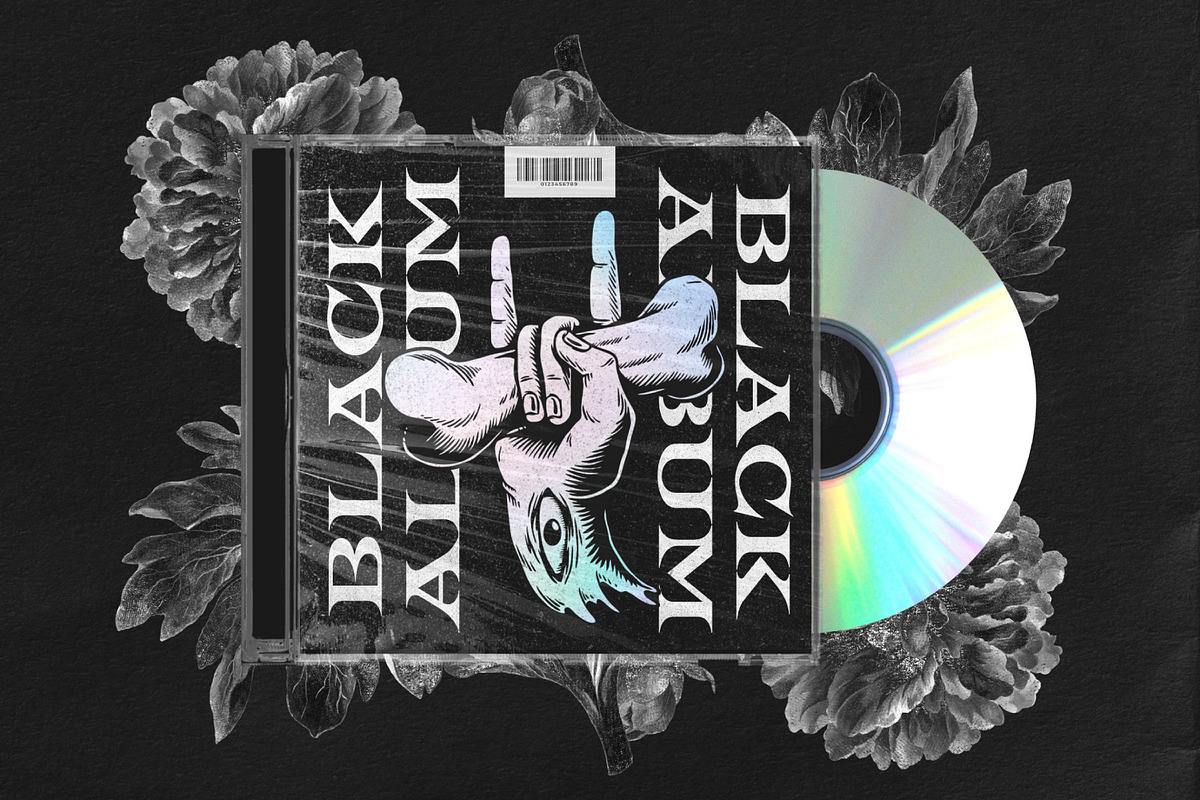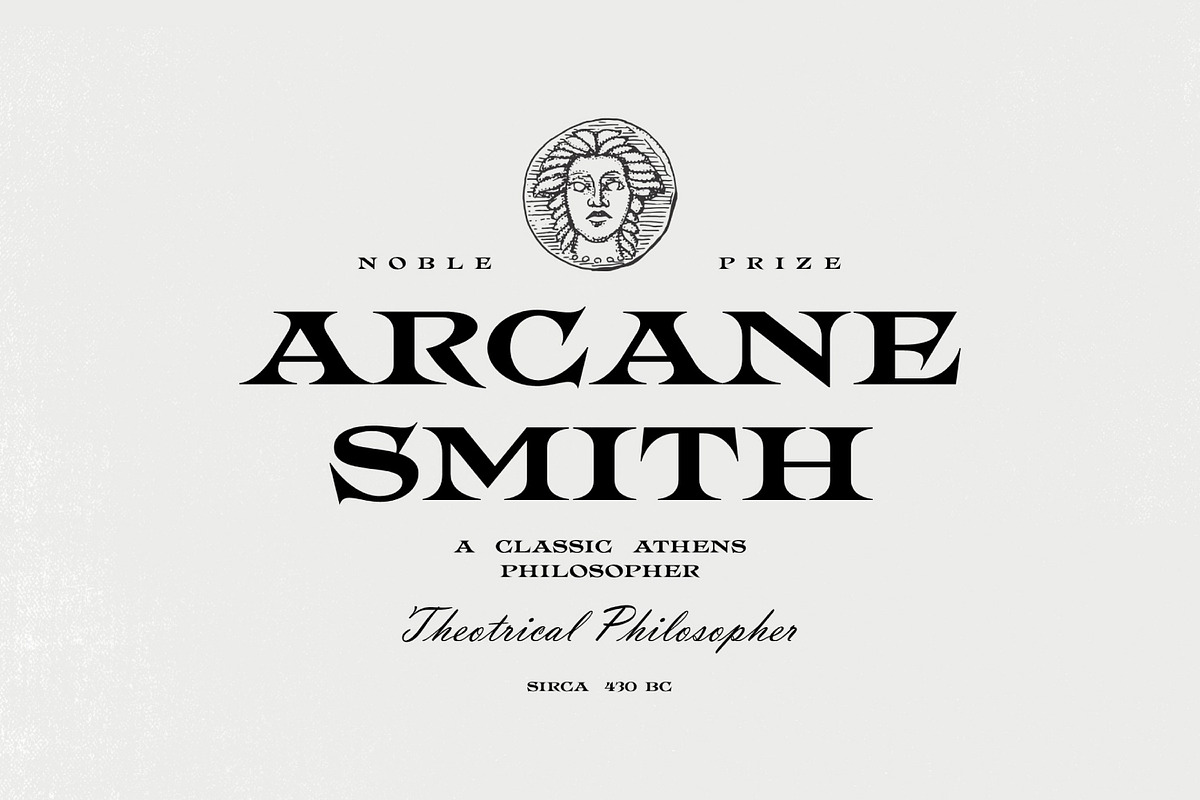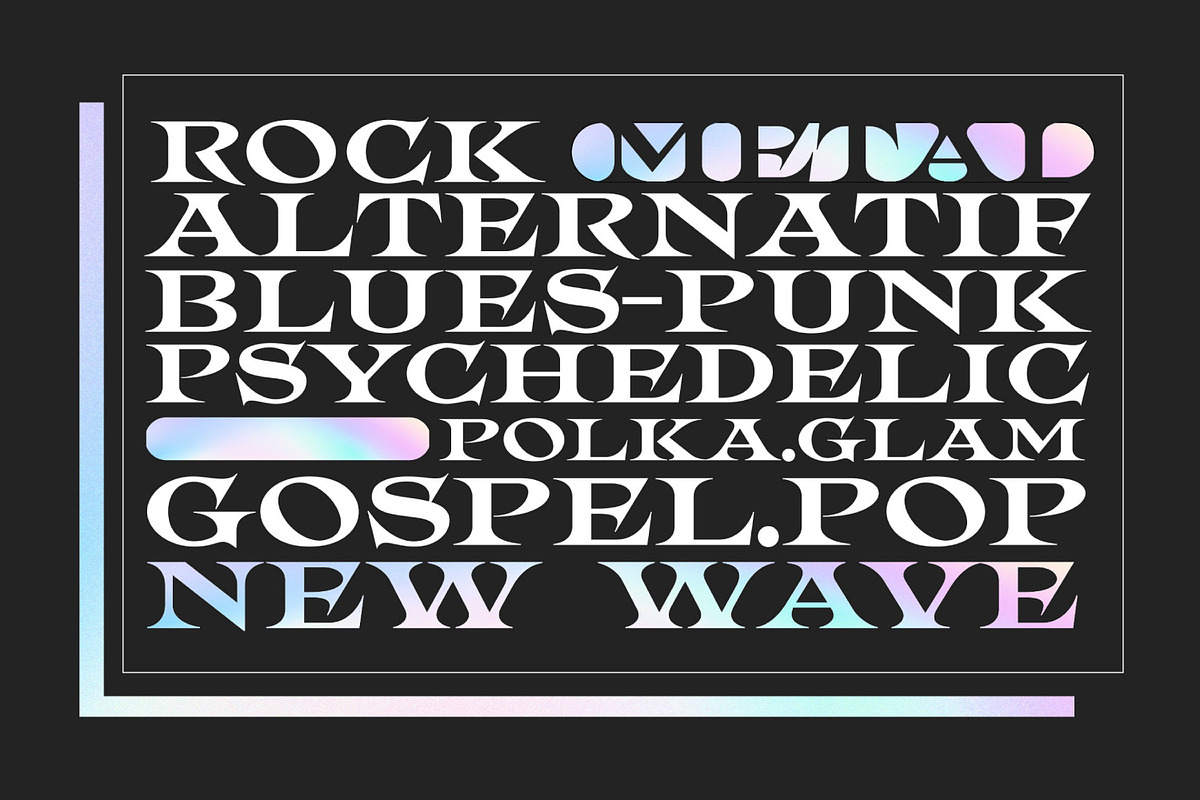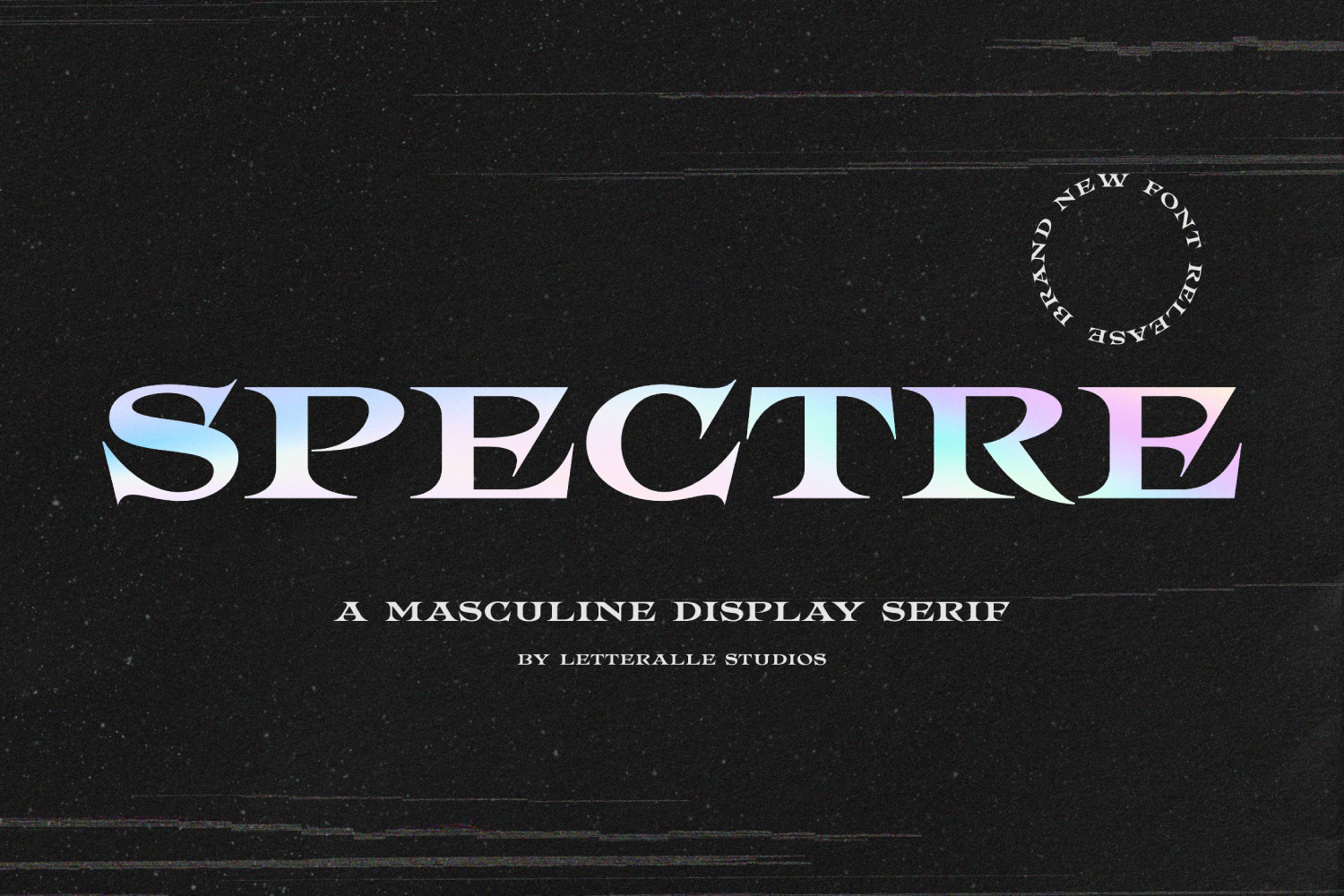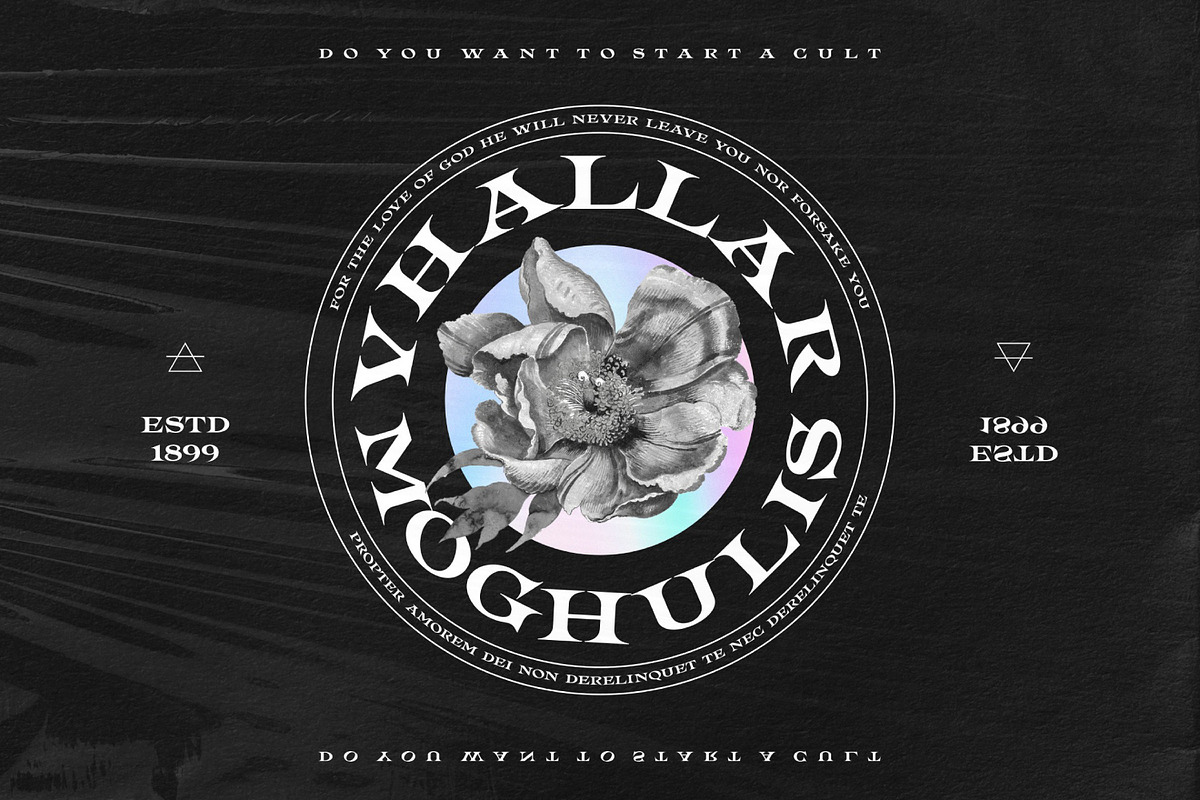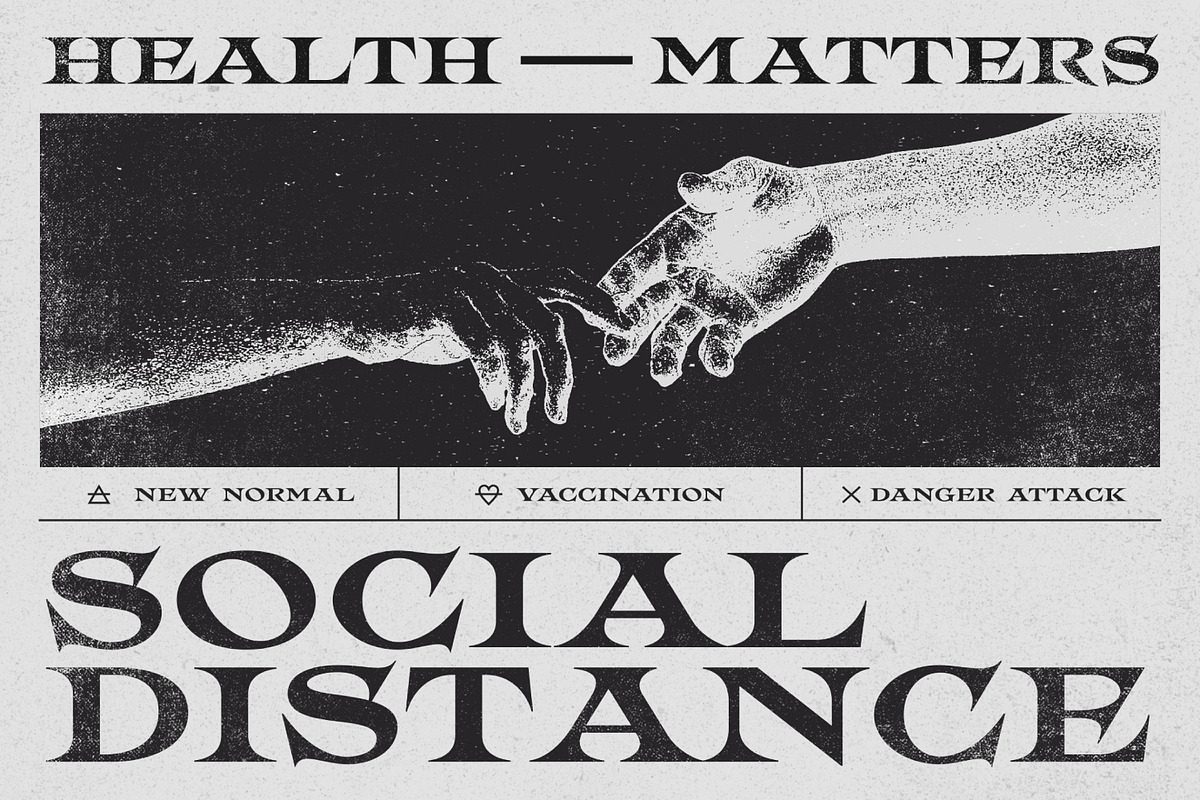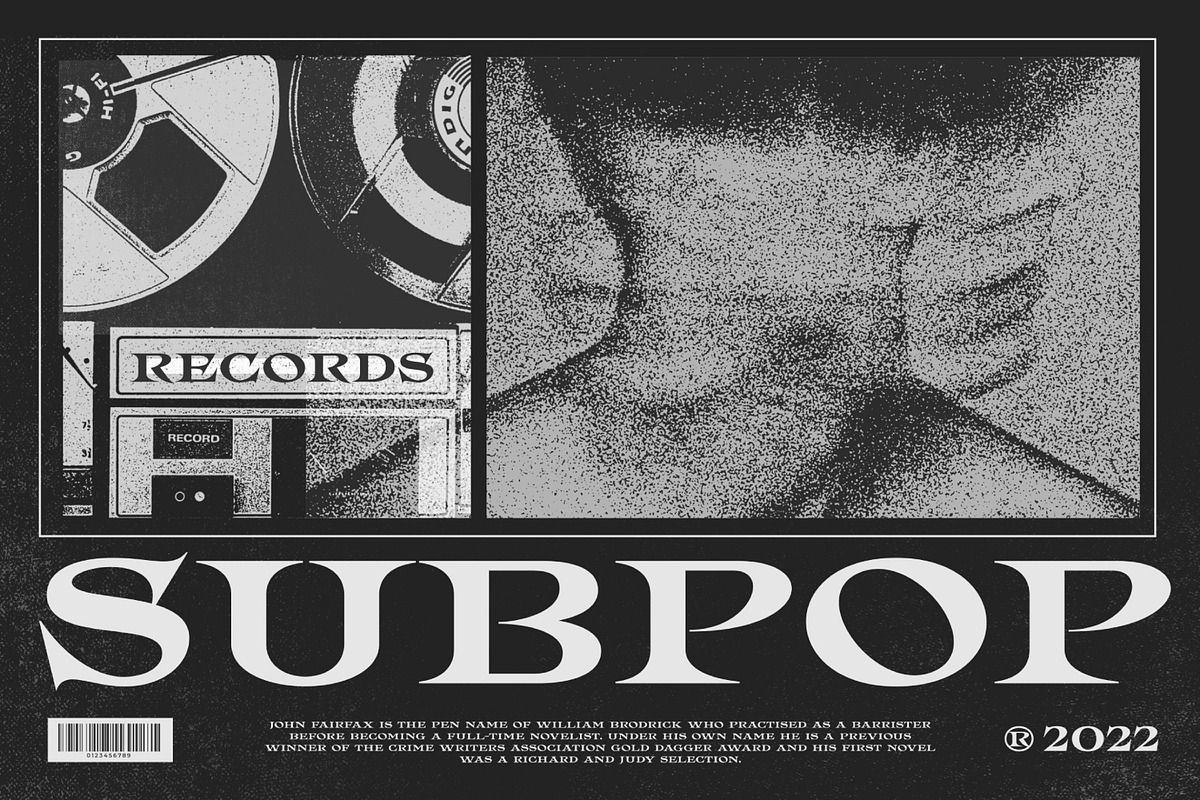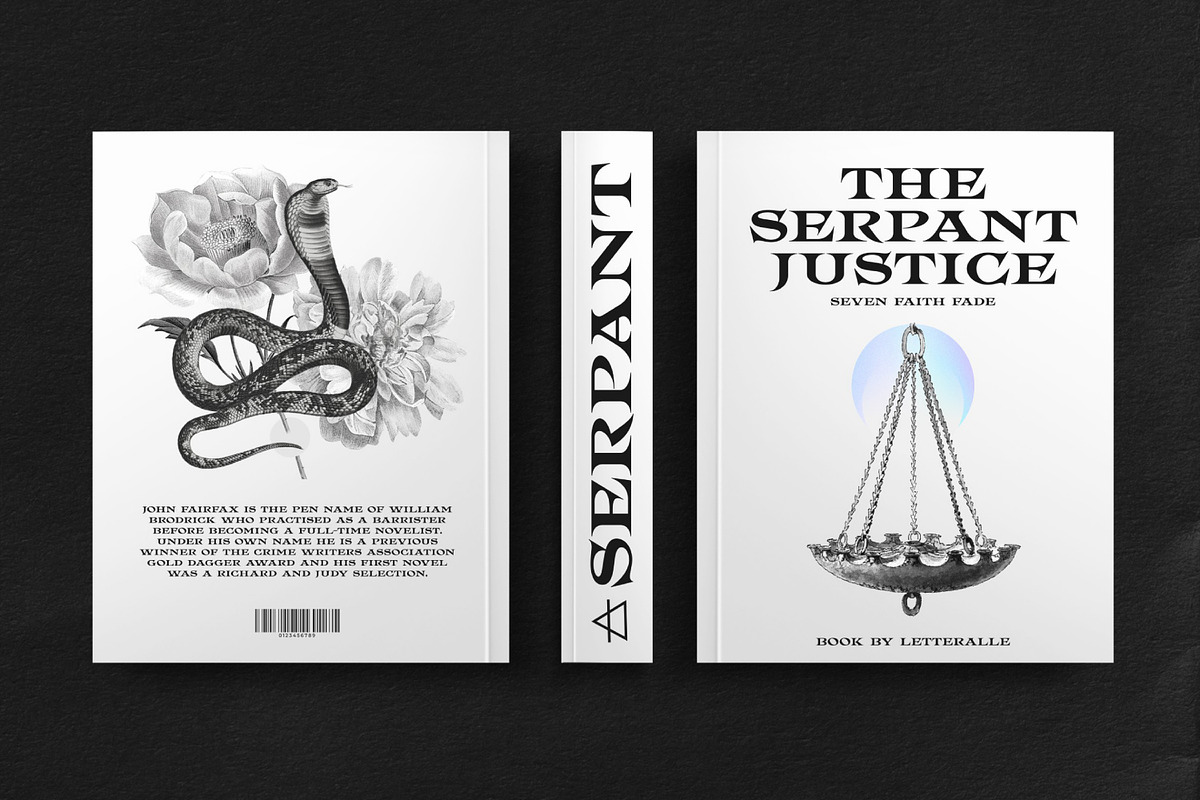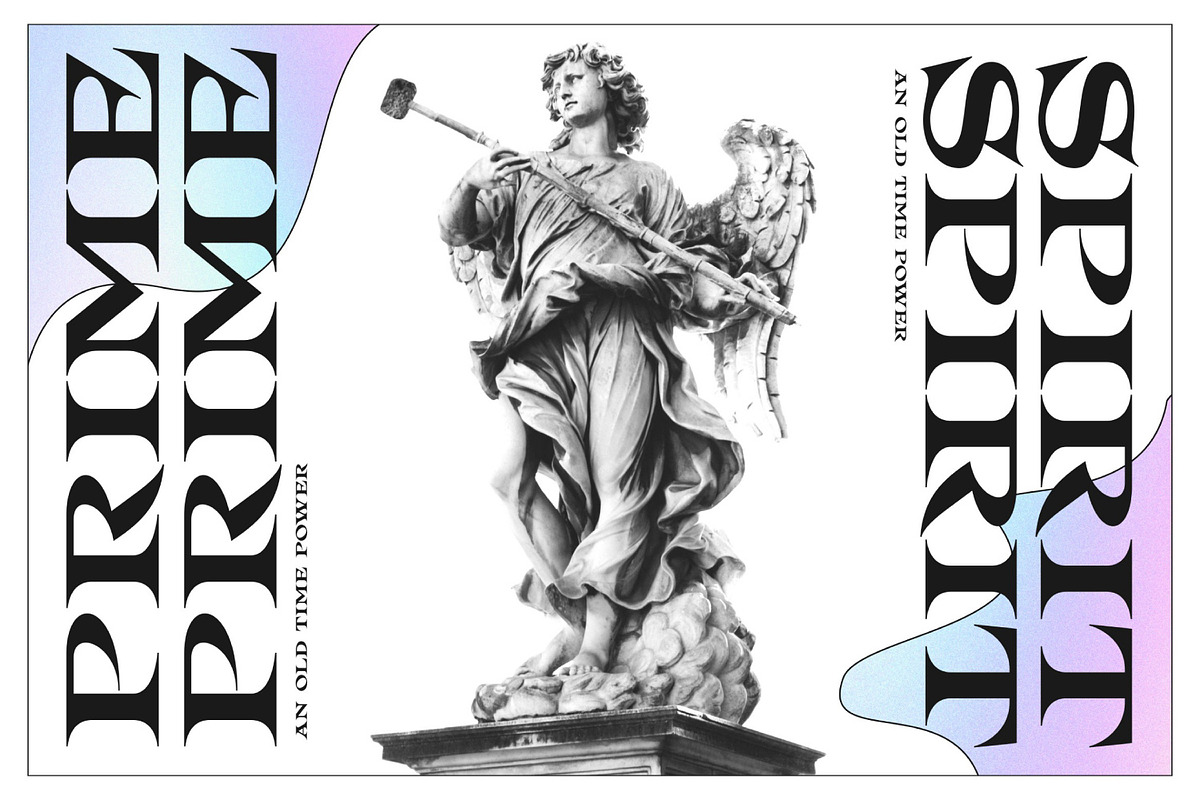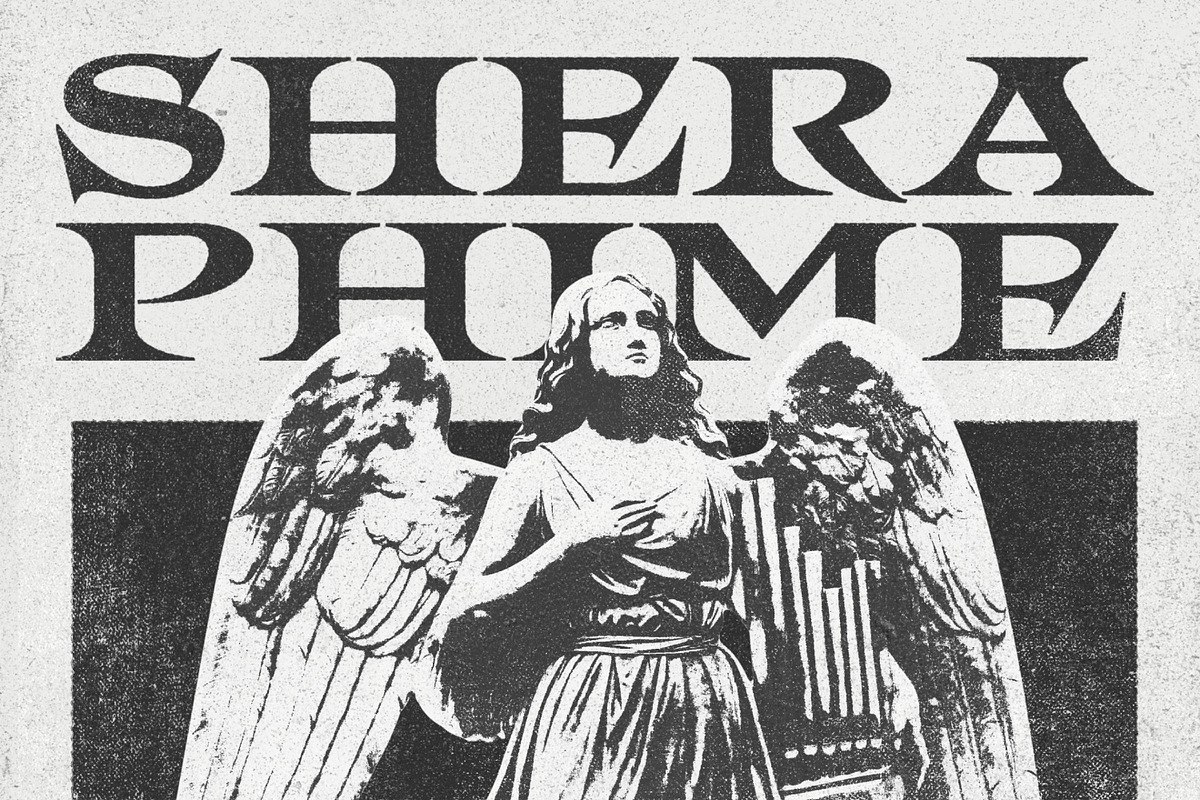
Spectre Masculine Serif Font
Spectre is an allcaps display font. With bold and sharp shapes, this font is able to bring a fierce and bold impression to your designs.
Spectre is perfect for editorial projects, Logo design, Music Album, Clothing Branding, product packaging, magazine headers, or simply as a stylish text overlay to any background image.